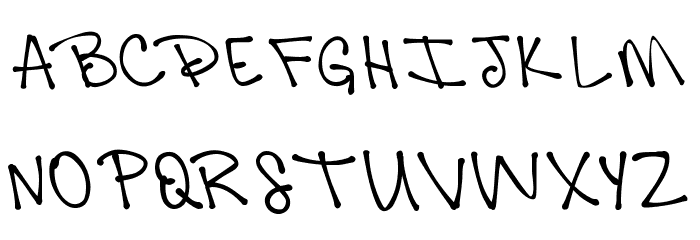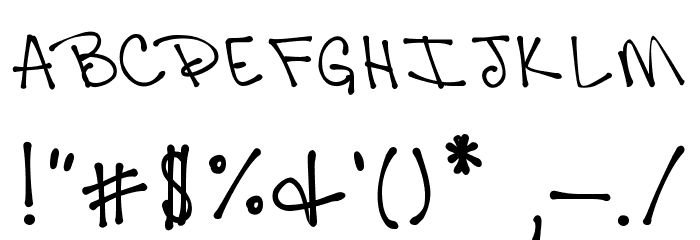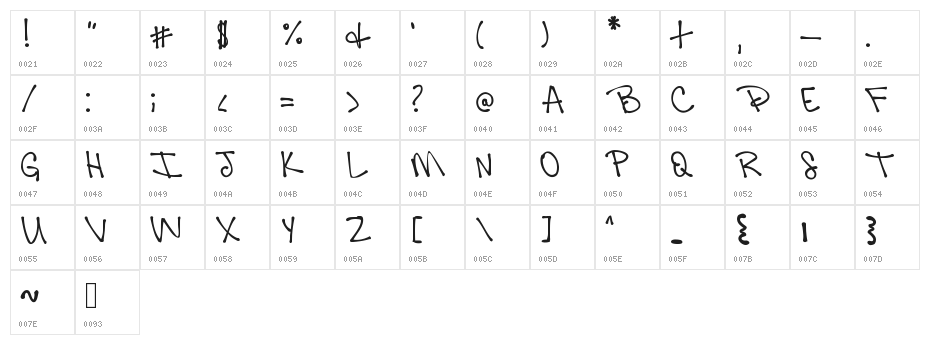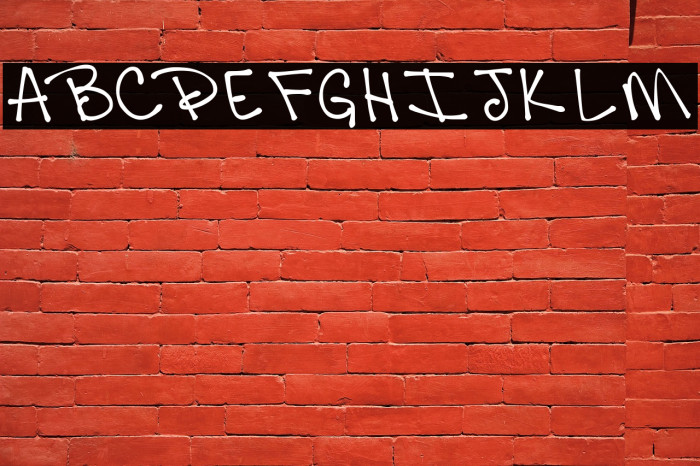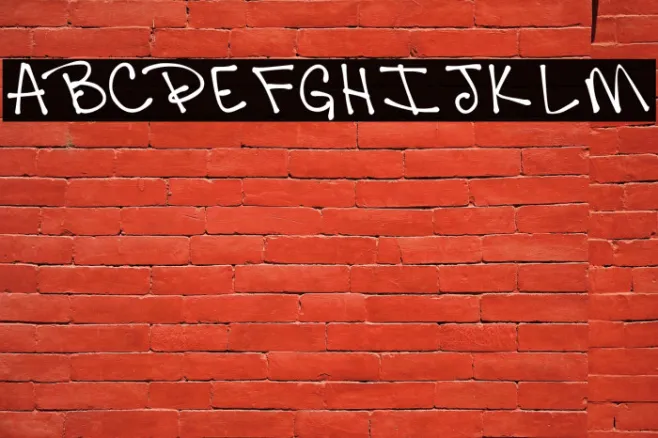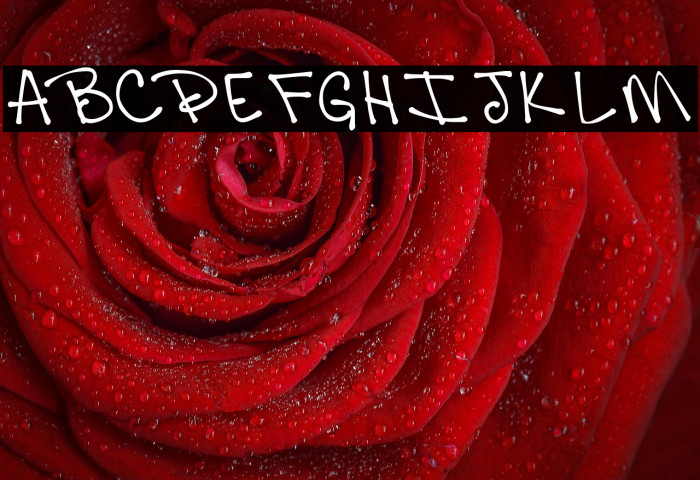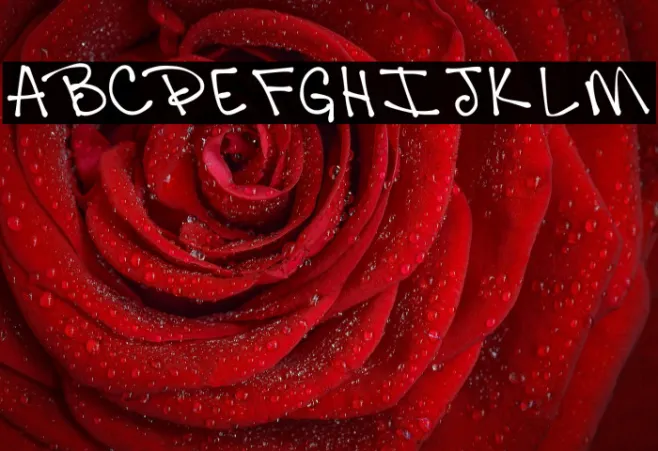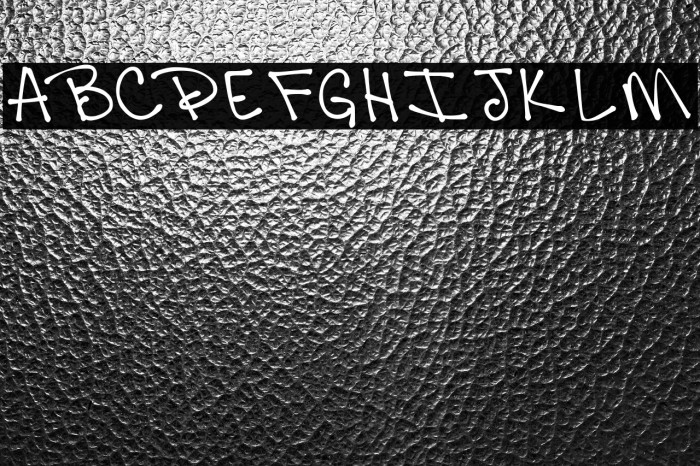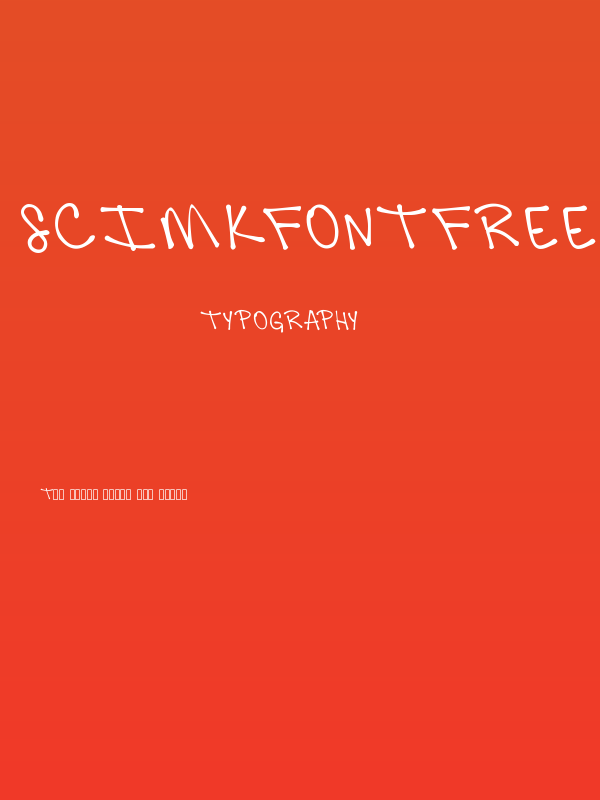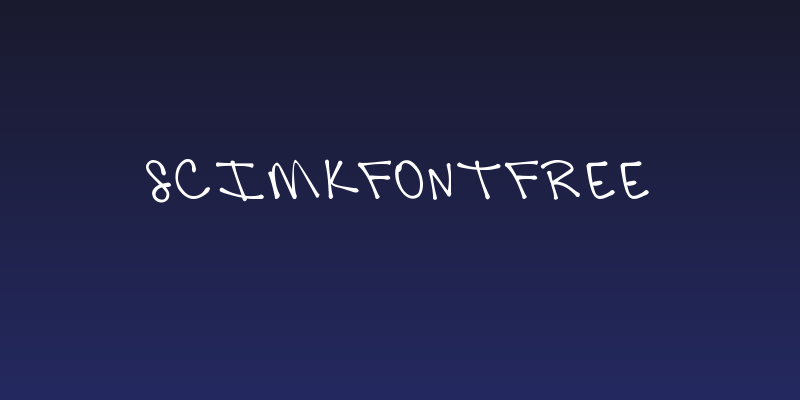
SCIMKfontfree Font
This font features a playful and casual handwritten style, characterized by its irregular and dynamic strokes. The letters are slightly slanted, giving a sense of movement and spontaneity. The uppercase and lowercase characters maintain a consistent style, with rounded edges and varying stroke widths that add to its informal charm. The numerals and special characters follow the same aesthetic, ensuring a cohesive look across all text. This font is ideal for projects that require a personal touch or a relaxed, friendly vibe.
A playful, casual handwritten font with dynamic strokes.
- Proposed Projects: Great for greeting cards, personal blogs, informal invitations, and children's book covers.
- Category: Handwritten
- Overall Style: Casual
- Use Case: Headlines, Logos, Informal Text